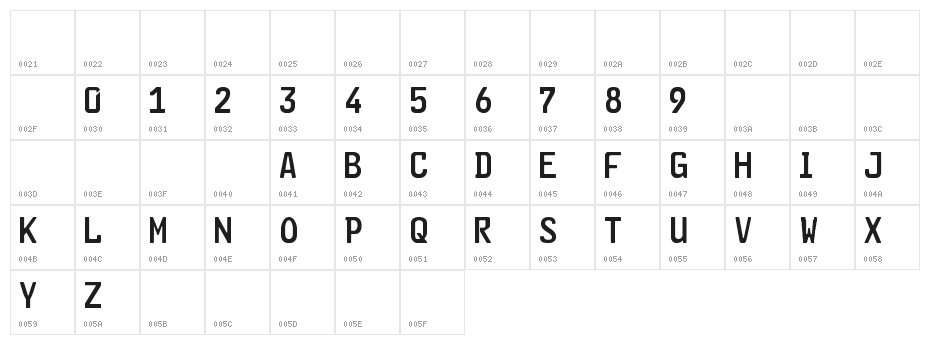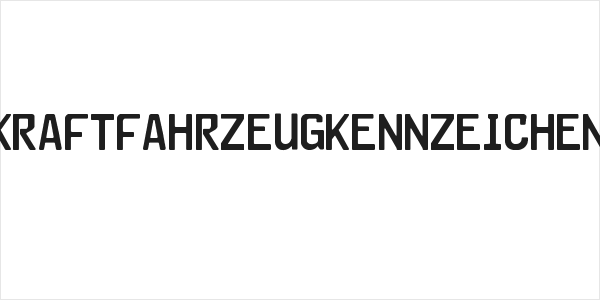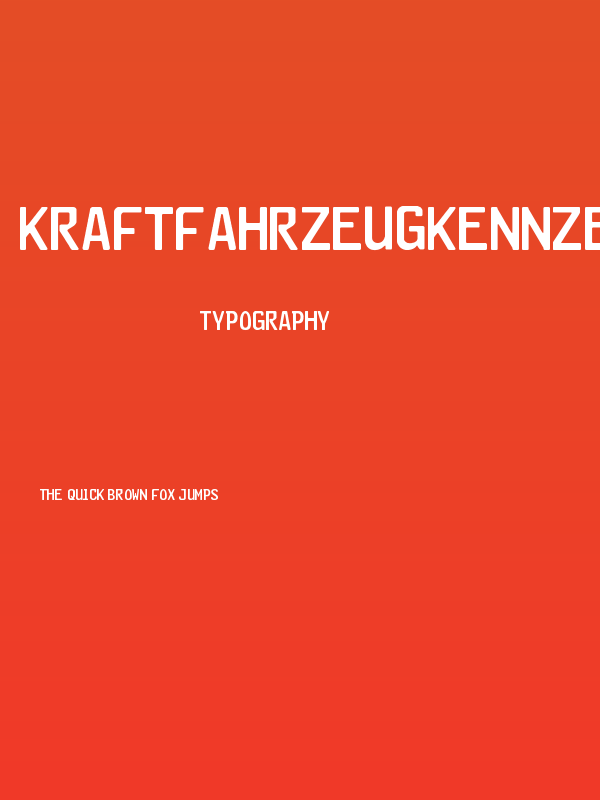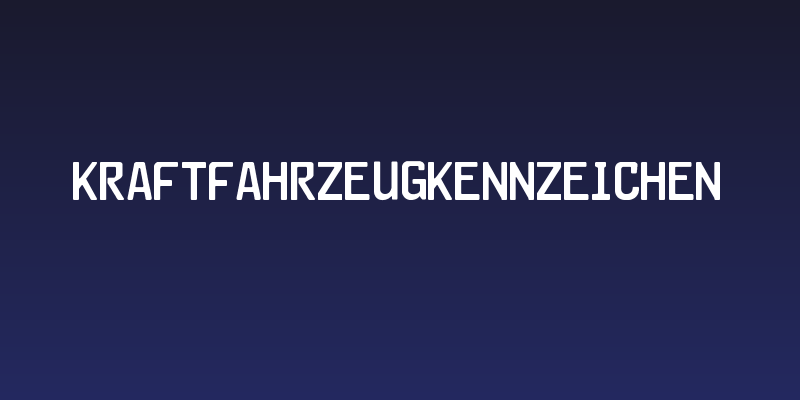
Kraftfahrzeugkennzeichen Font
Kraftfahrzeugkennzeichen Description
This font features a bold and utilitarian design, characterized by its strong, geometric shapes and uniform stroke width. The letters are clear and legible, making it ideal for situations where readability is crucial. The uppercase letters are slightly condensed, contributing to a compact appearance, while the numerals are distinct and easy to differentiate. The overall style is modern and functional, with a no-nonsense aesthetic that emphasizes clarity and efficiency.
| Use Case | Signage, Vehicle registration plates, Labels |
| Proposed Projects | Ideal for vehicle registration plates, signage, and any project requiring high legibility and a modern look. |